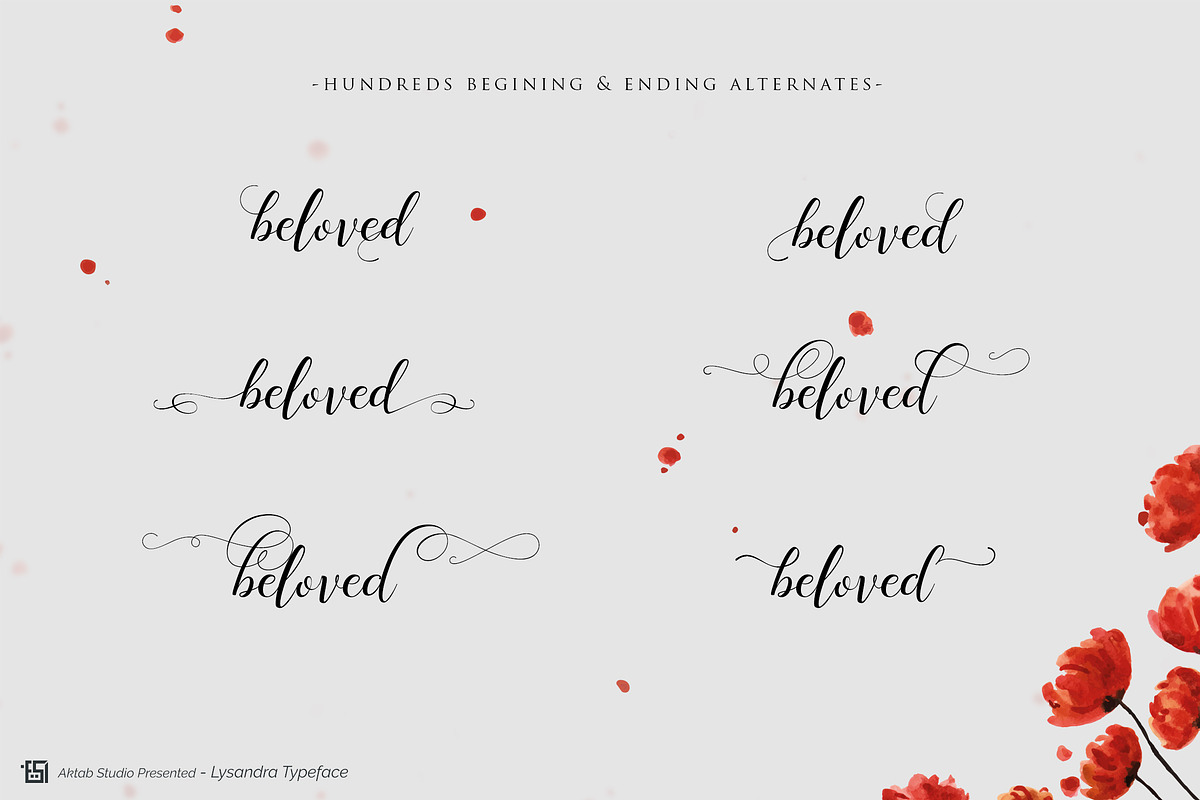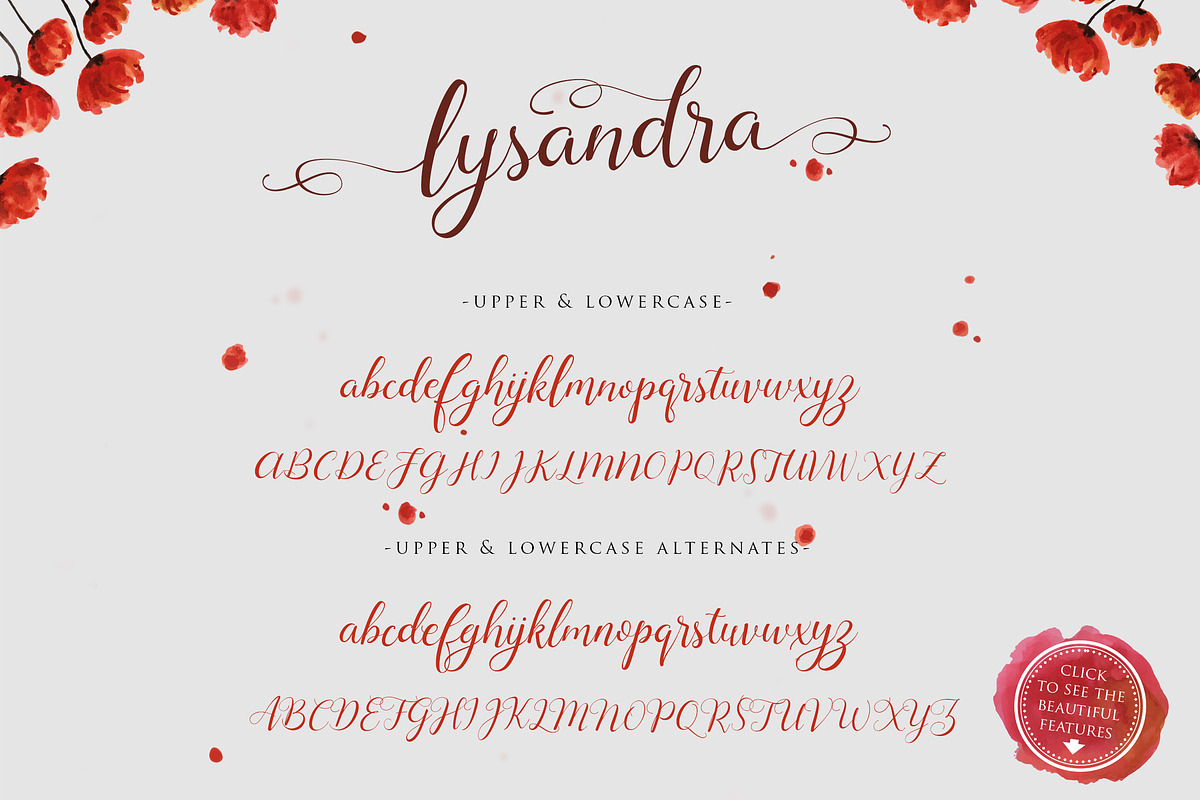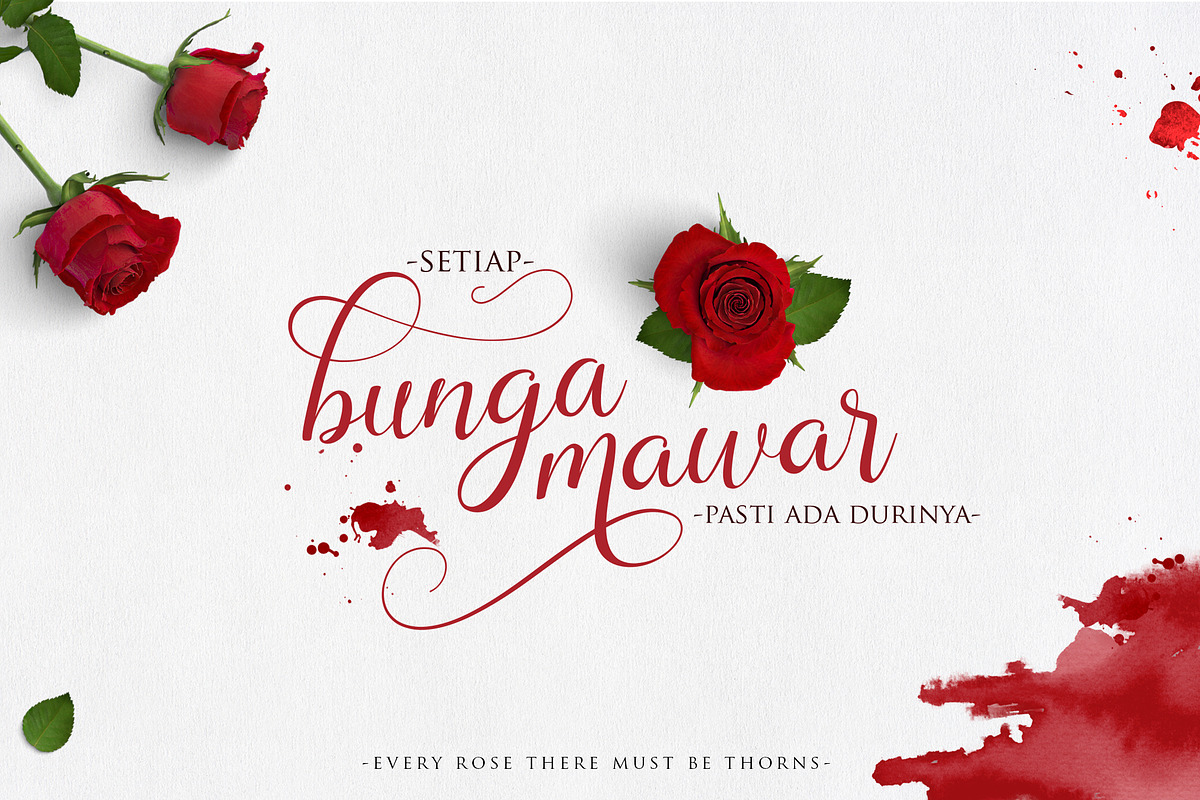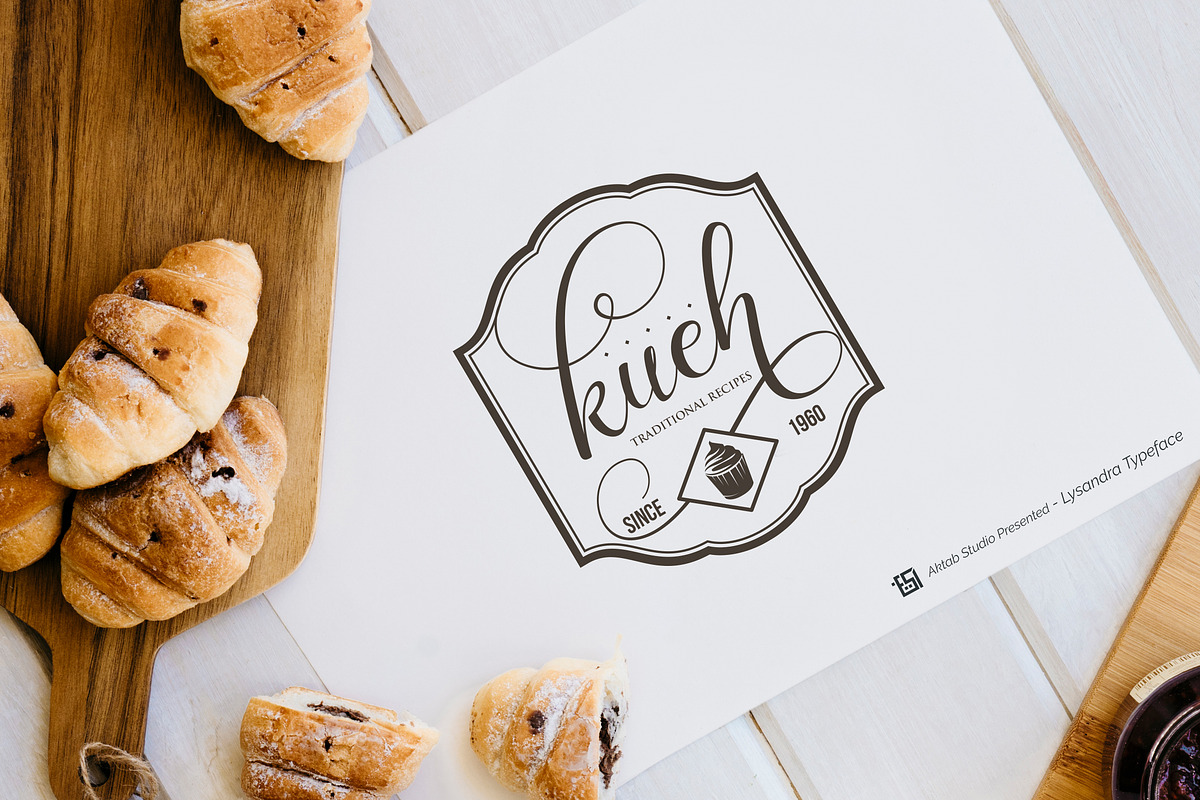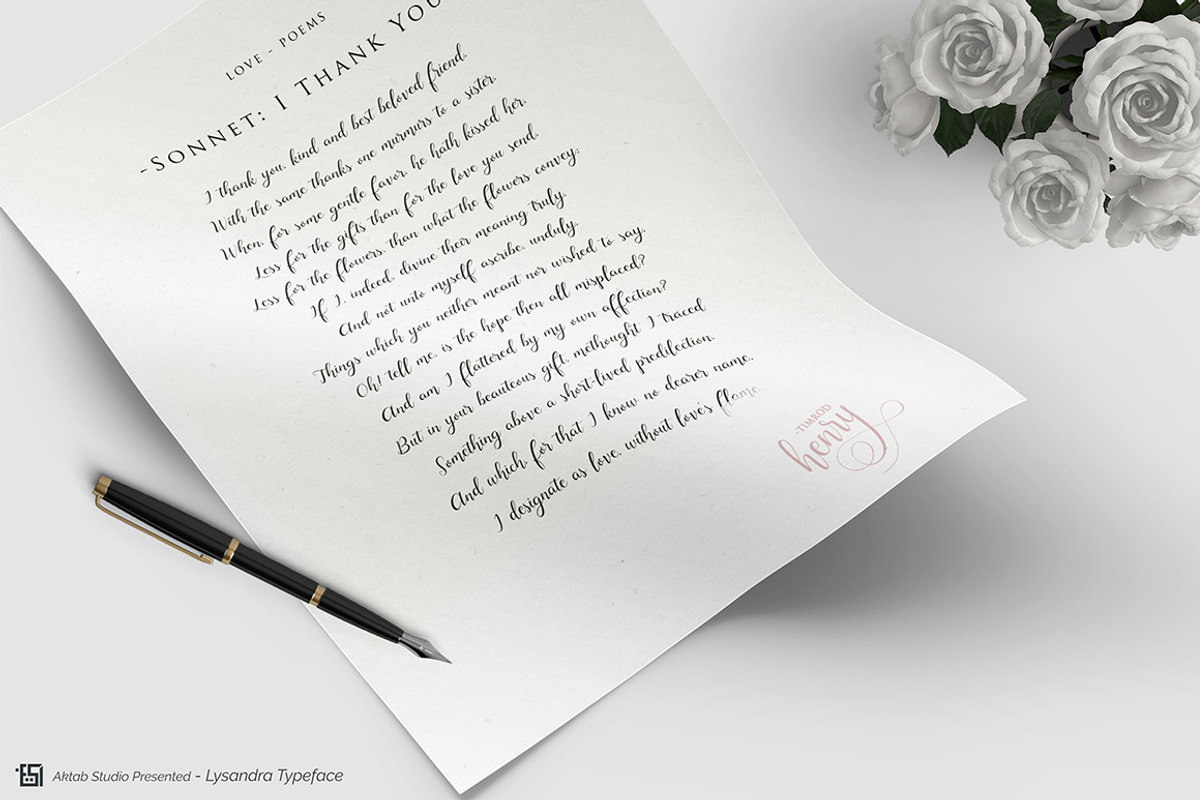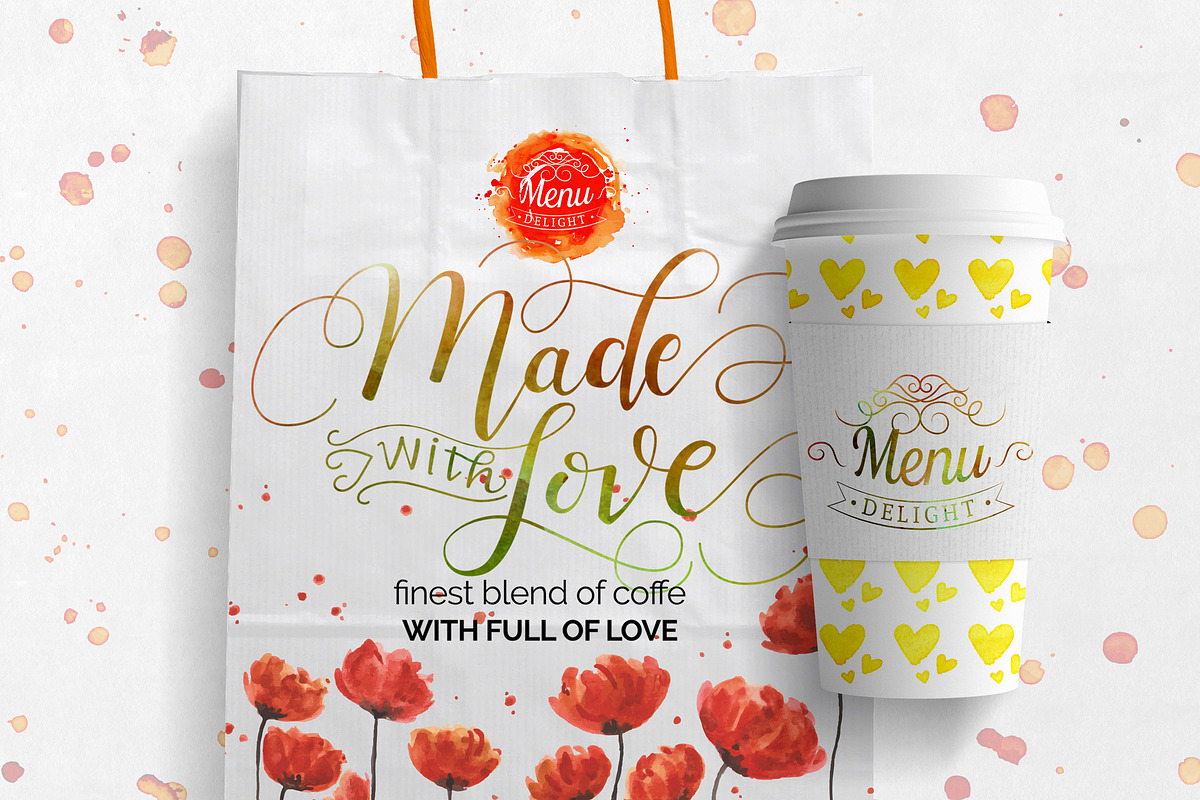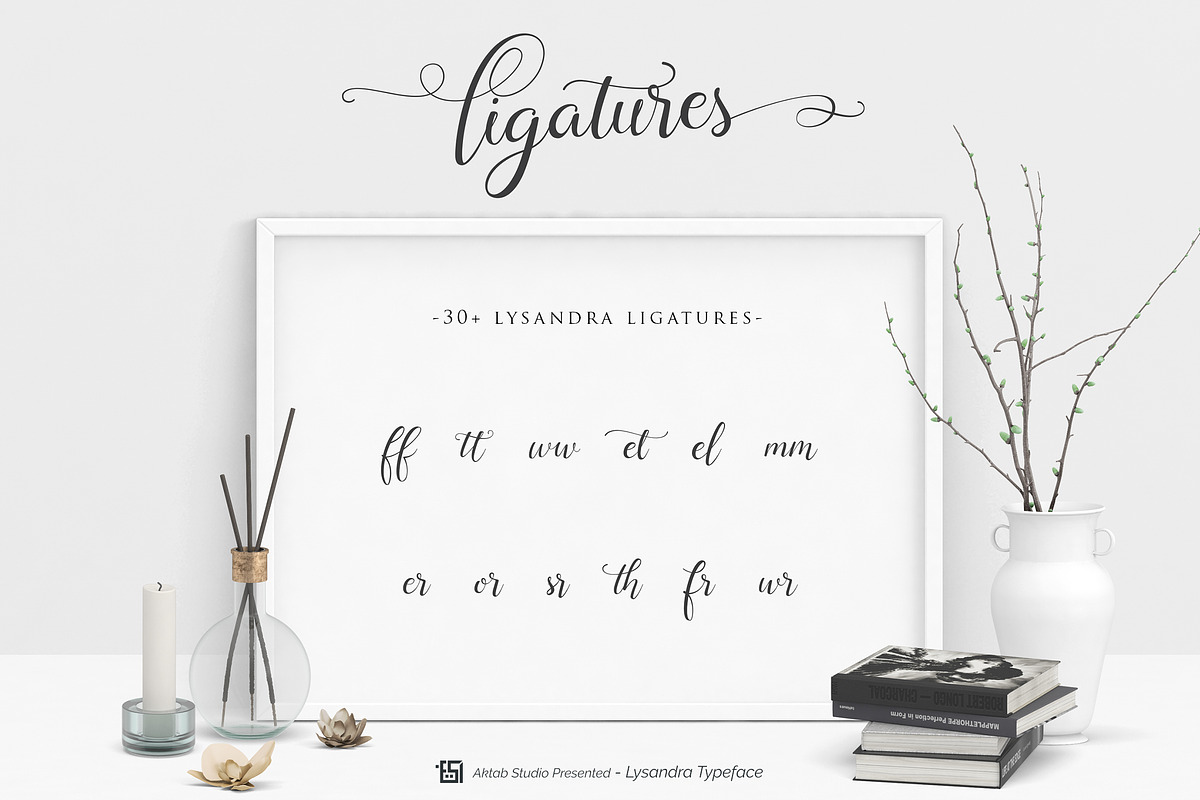
Lysandra Beauty Font
Lysandra Typeface is a modern font with more featured and made with love :). Lysandra Typeface have a complete glyphs, this font suitable for wedding invitation, greeting cards, T-Shirt, Logo or any design that you create. comes with a complete set of standard characters, Alternates, Ligature Variation, Punctuation & have extra textured version for your design and many more.
The Features of this fonts is:
UPPERCASE and lowercase
Numeral and punctuation
Stylistic Alternates and Contextual Alternates
Initial and Terminal Forms
Bonus Ornament and Extras
Lysandra Beauty Font by Aktab Studio fits naturally into Branding, posters, packaging, typography.